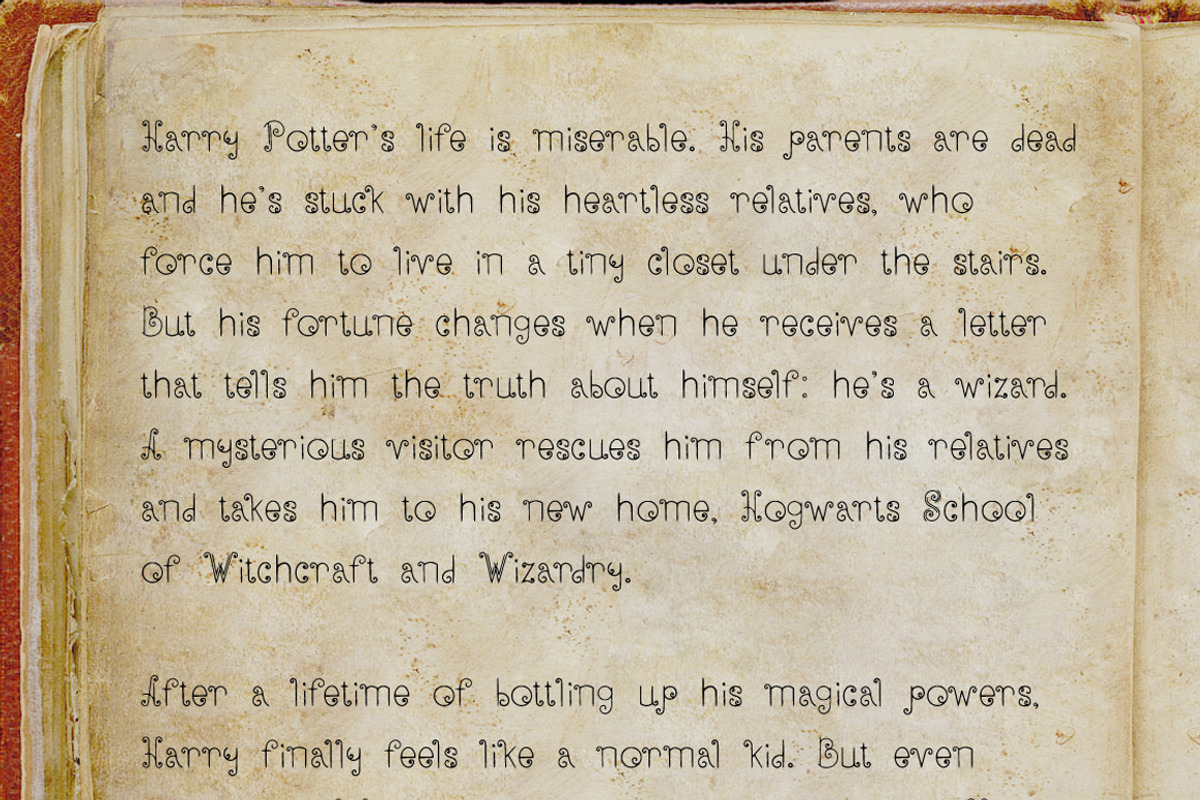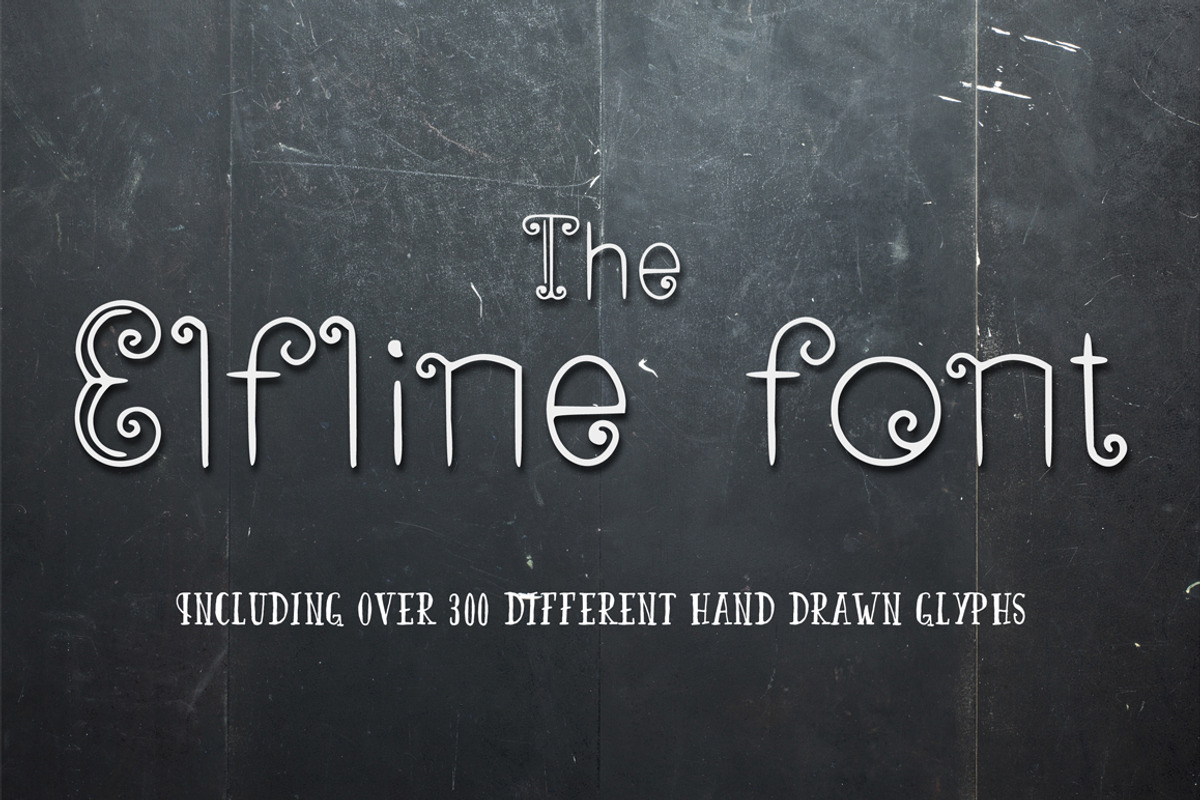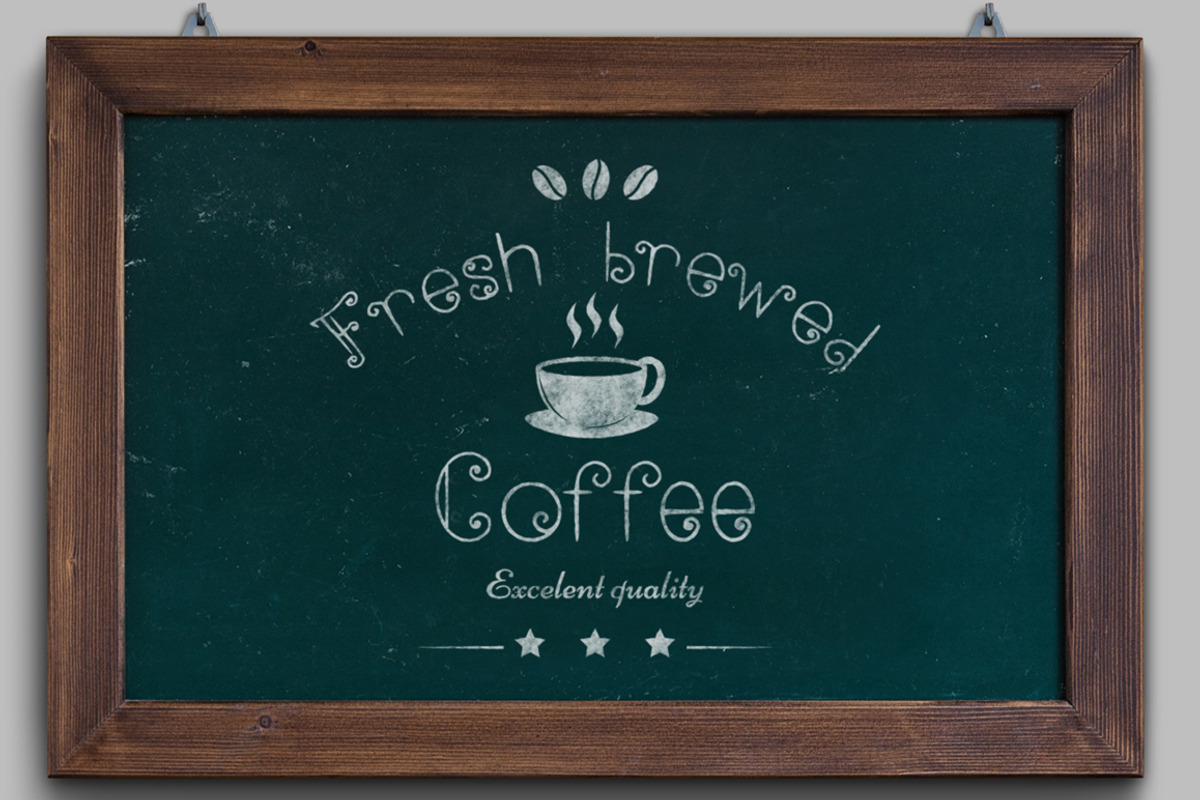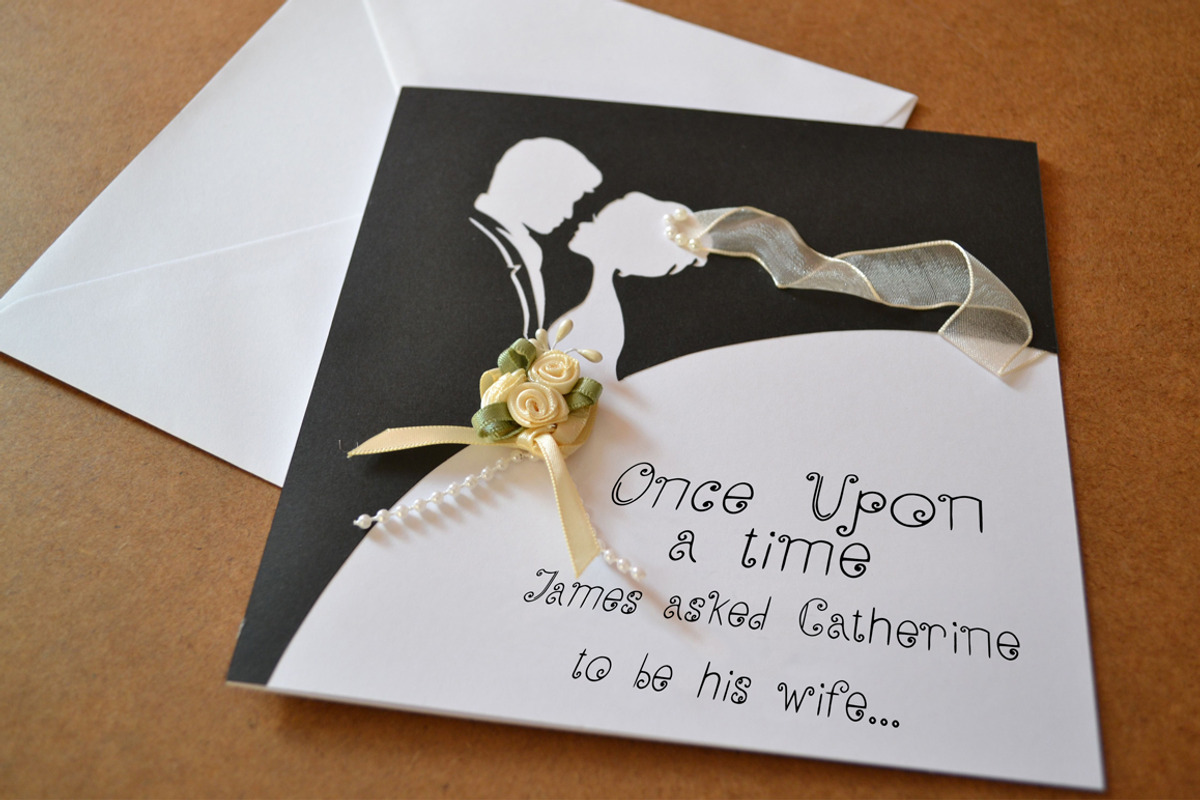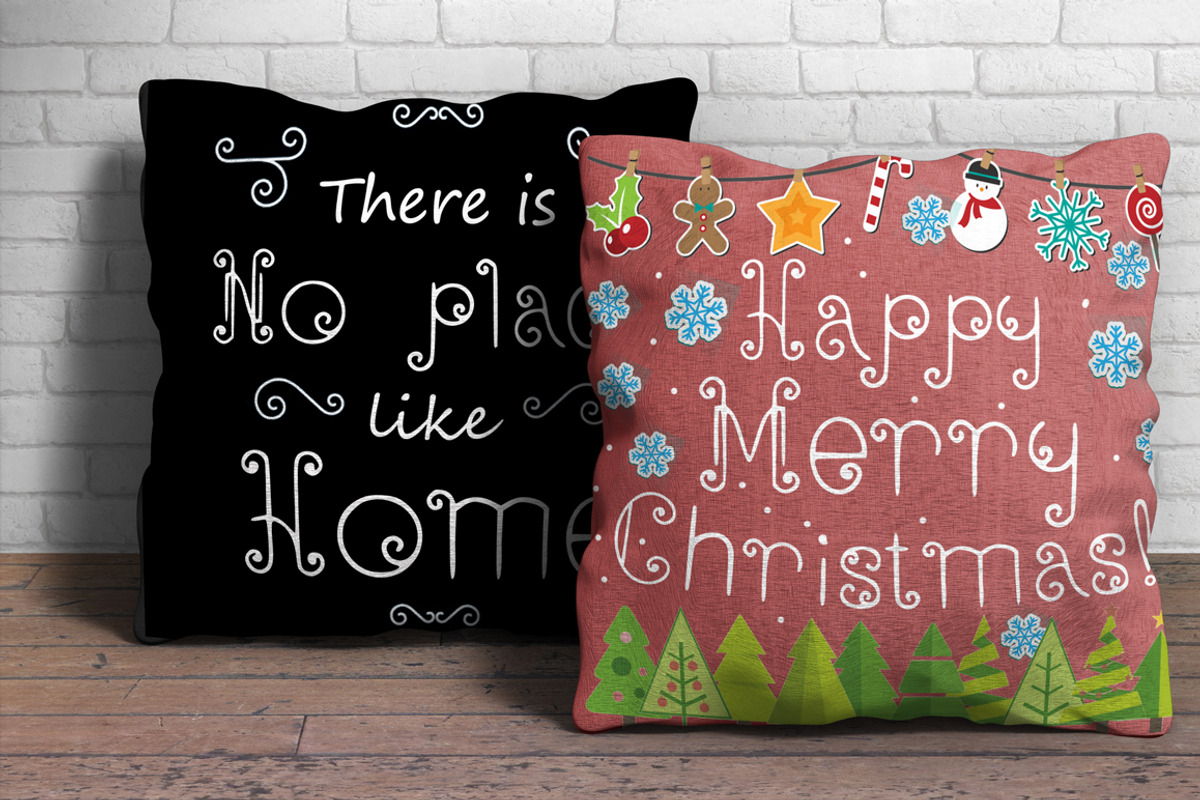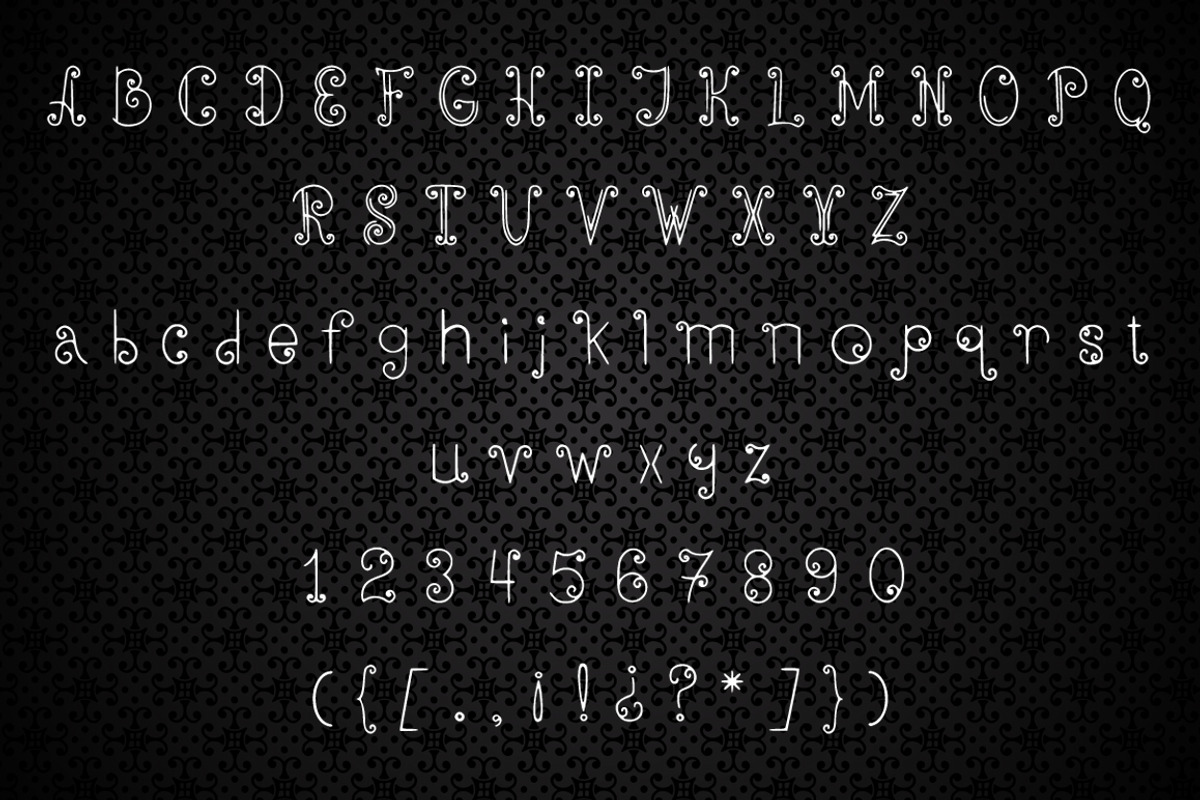
ElfLine decorative style font
ElfLine decorative style font by Sergei Lavrenov is a font selected for branding, posters, packaging, typography.
- It also has multilingual support with accented characters for international users.
- Including over 300 different hand drawn glyphs in the font including a range of languages and dialects: Uppercase Lowercase Numerals & Punct
Why ElfLine decorative style font is worth a look
ElfLine decorative style font by Sergei Lavrenov fits naturally into Branding, posters, packaging, typography.